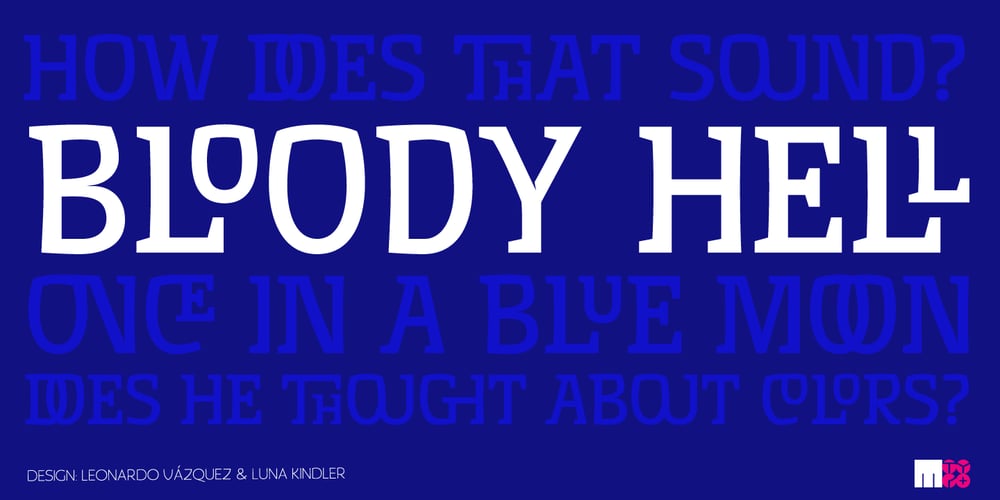
Algarabia Display Font Family was designed by Luna Kindler, Leonardo Vazquez and published by Macizo.com.mx. Algarabia Display contains 1 styles and family package options. Algarabía Display was created for titles or to highlight a particular text. It includes a set of accented capitals and accented lowercases, almost one hundred ligatures, entry and exit capitals, symbols, punctuation and numerals, and almost 50 different kinds of dingbats. It is a typeface to have fun.